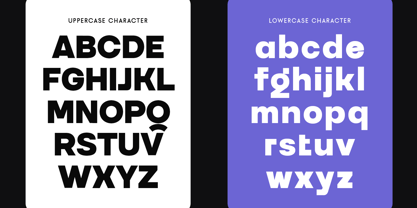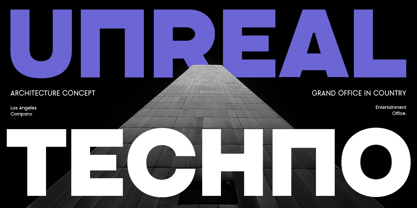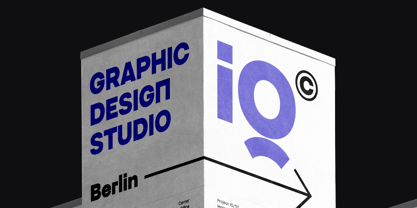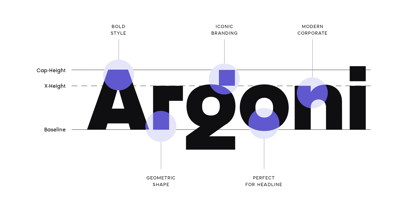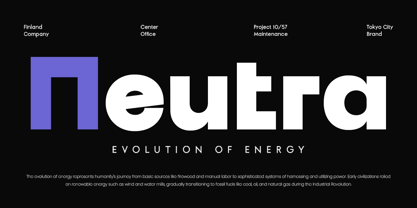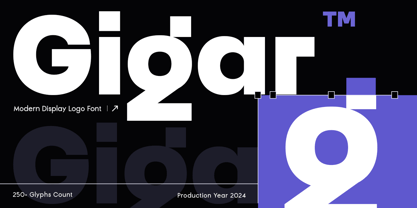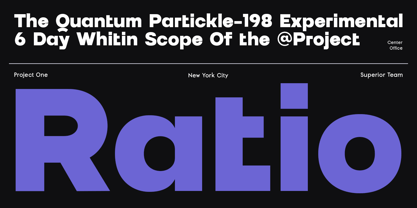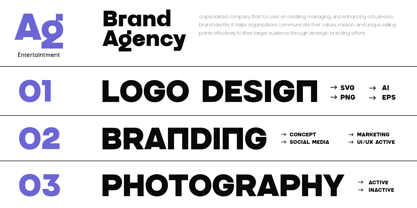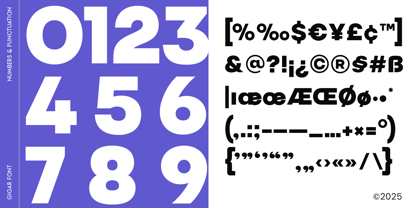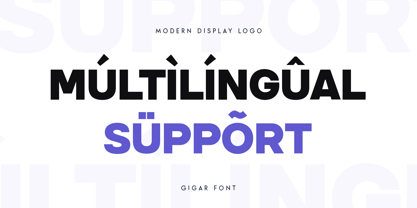
GIGAR is a modern display logo font created for brands that want to make a bold, distinctive statement. With its strong letterforms and geometric precision, GIGAR is perfect for creating impactful logos, stylish branding, and contemporary design projects that demand attention.
Whether you’re designing for a tech startup, a fashion brand, or a creative agency, GIGAR ensures your logo stands out with its clean, modern aesthetic. The font’s versatility allows for a wide range of applications, making it ideal for digital and print branding.
GIGAR – Modern Display Logo Font Features
Bold, geometric letterforms with a modern design
Perfect for logos, branding, and digital design
Includes uppercase, lowercase, numerals, and punctuation
Sleek, contemporary design with professional appeal
OpenType features for advanced typographic flexibility
Multilingual support for:
Afrikaans, Albanian, Asu, Basque, Bemba, Bena, Breton, Chiga, Cornish, Dutch, English, Estonian, Filipino, Finnish, Friulian, Galician, German, Gusii, Indonesian, Irish, Italian, Kabuverdianu, Kalenjin, Kinyarwanda, Luo, Luxembourgish, Luyia, Machame, Makhuwa-Meetto, Makonde, Malagasy, Manx, Morisyen, North Ndebele, Nyankole, Oromo, Portuguese, Quechua, Romansh, Rombo, Rundi, Rwa, Samburu, Sango, Sangu, Scottish Gaelic, Sena, Shambala, Shona, Soga, Somali, Spanish, Swahili, Swedish, Swiss, and more.
Elevate your brand with GIGAR – the ultimate font for modern and bold logo design.